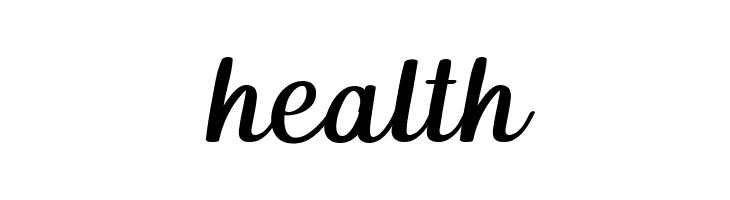
midnight Regular Font
A playful and whimsical font with curvy, flowing letterforms.
Mainland Font
A lively and elegant script font with fluid, connected letterforms.
Homework Regular Font
A playful, handwritten font with smooth, flowing curves and a casual style.
Higher Luck Regular Font
An elegant script font with flowing, decorative curves and intricate loops.
Bright Star Dafont Regular Font
An elegant script font with flowing, cursive strokes.
Stellina Font
An elegant script font with flowing, cursive letters and a sophisticated appearance.
Young Spirit Regular Font
A lively and flowing cursive font with elegant connections and playful lowercase letters.
Staylist Regular Font
An elegant, cursive font with flowing, sophisticated characters.
Just Dream Font
A flowing, cursive font with elegant, sweeping curves and a sophisticated style.
Reminder Regular Font
A playful and flowing script font with smooth curves and consistent strokes.
Rendera Regular Font
A playful, decorative font with elegant curls and loops.
kalimat Regular Font
A playful and artistic script font with flowing, connected letterforms.
Sticknote Regular Font
A playful and casual script font with smooth, flowing lines and rounded edges.
Holiday Song Regular Font
A playful, handwritten font with rounded edges and a casual style.
Born to Shine Regular Font
A bold, playful handwritten font with smooth, rounded edges and a lively style.
Stay Here Font
A bold, expressive script font with flowing, cursive letterforms.
Water Shower Regular Font
A playful and modern handwritten font with bold, flowing letterforms.
Relista Regular Font
A graceful and elegant script font with a handwritten style.
Simple Story Font
A playful, hand-drawn font with rounded edges and a whimsical style.